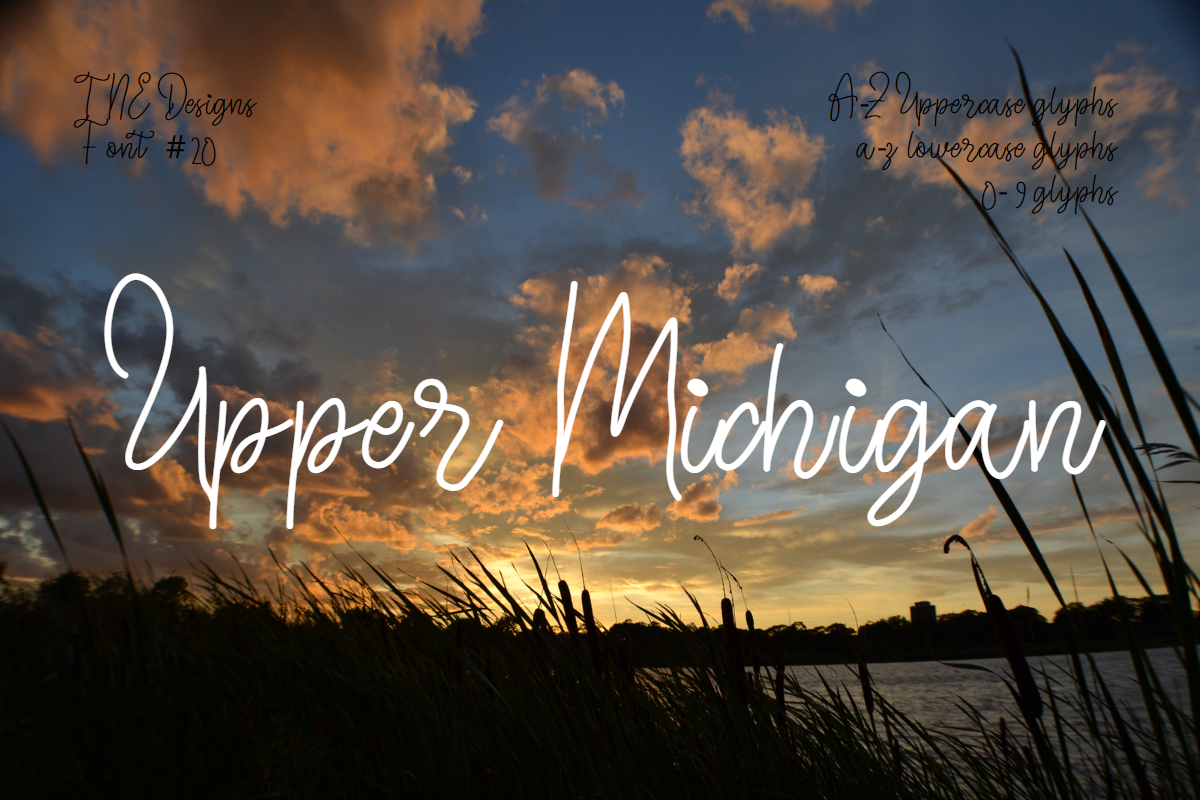
Upper Michigan sans serif font
Upper Michigan font by TNE Designs Upper Michigan is a sans serif font with A-Z uppercase, A-z lowercase and 0-9 glyphs. 62 in total.